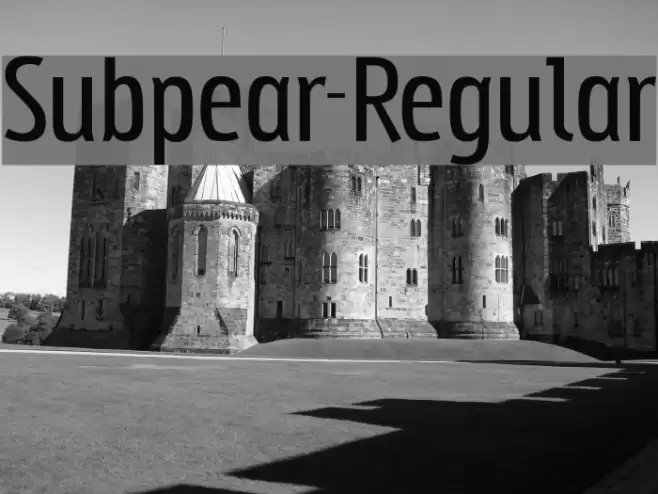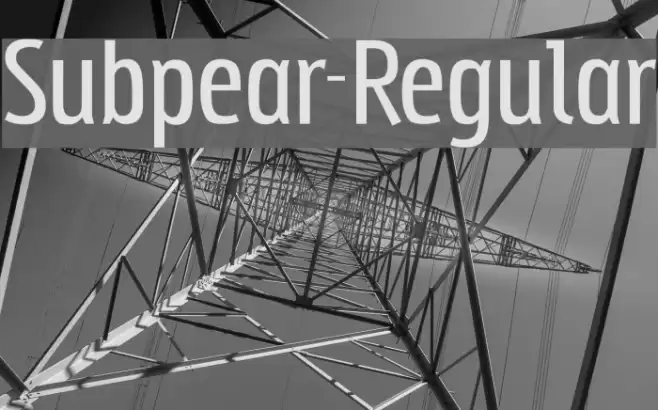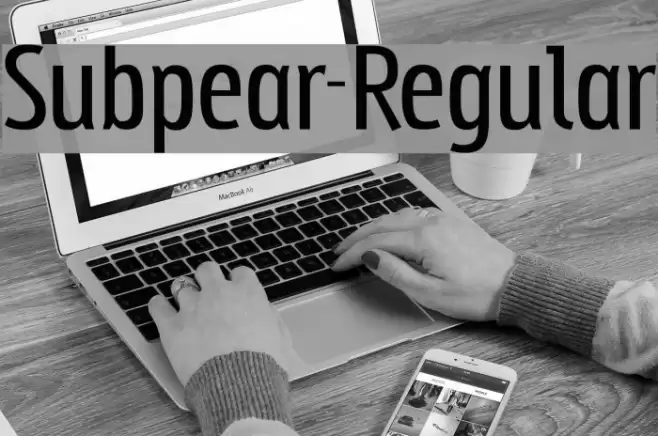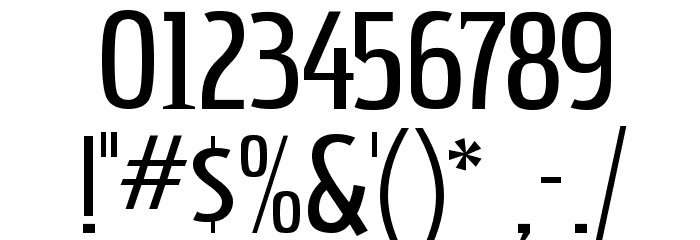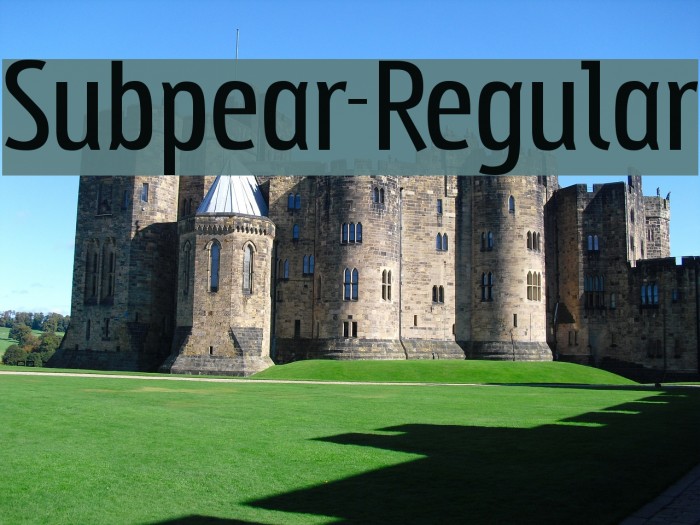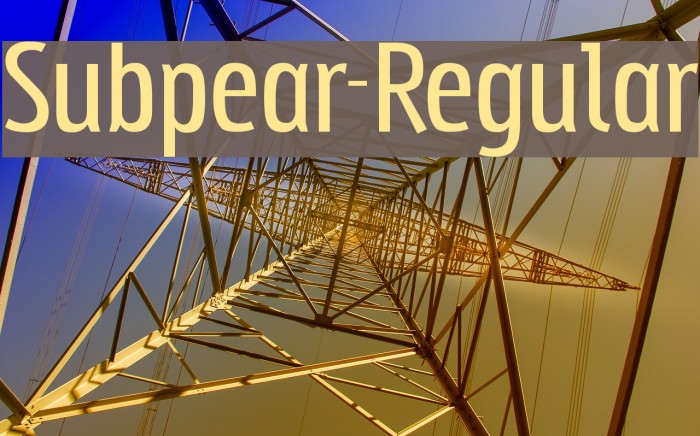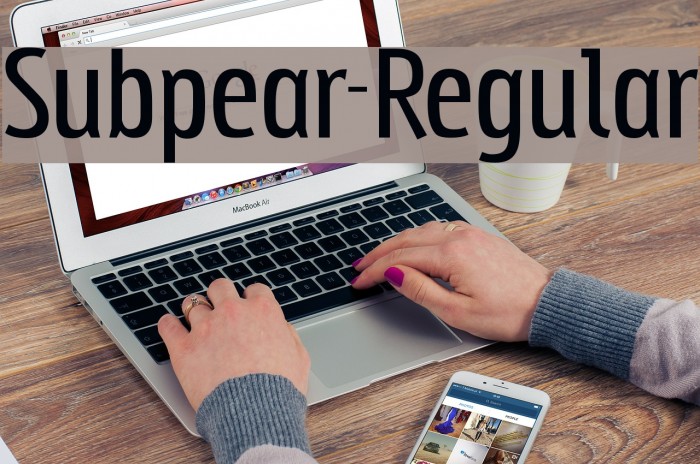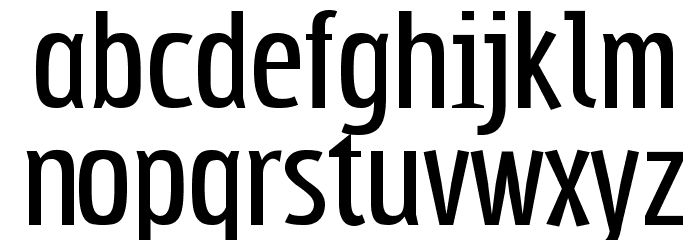
Subpear-Regular Font
This font features a modern and clean sans-serif design with a slightly condensed structure. The characters are uniform with a consistent stroke width, offering a sleek and professional appearance. The uppercase letters are bold and impactful, while the lowercase letters maintain a balanced and approachable look. The numerals are clear and easily readable, making them suitable for various applications. Special characters are well-integrated, enhancing the font's versatility. The overall style is contemporary, making it ideal for digital and print media.
A modern, clean sans-serif font with a slightly condensed structure from Uncategorized fonts.
- Proposed Projects: Ideal for branding, digital media, advertising, and editorial design.